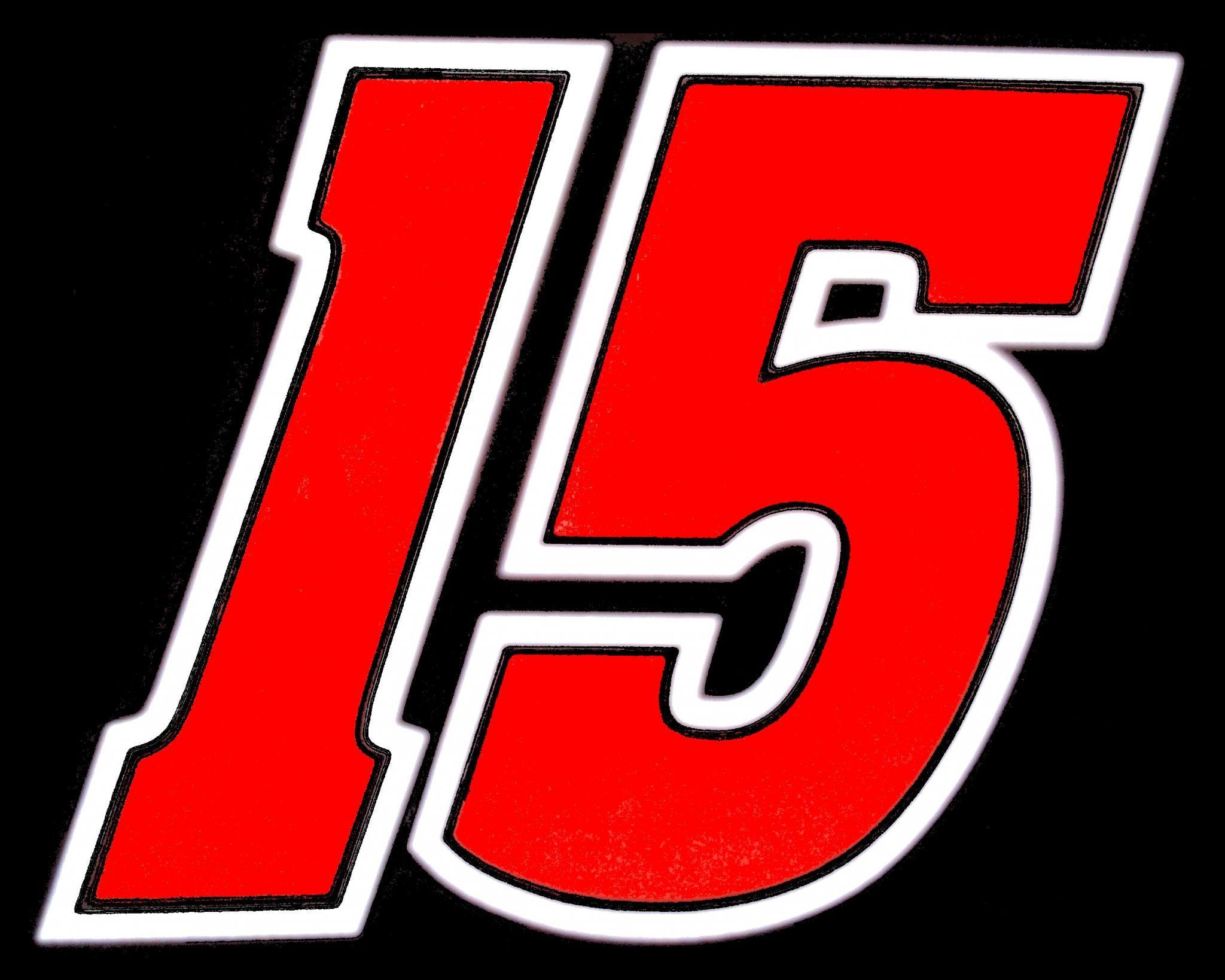
Incredible Nascar Fonts 2022. Web the nascar font can be downloaded in regular, italic, bold, and bold italic styles. The closest font we can find for nascar logo is itc machine medium, which is a display sans serif font designed by ronne bonder &.
Web What's The Font Used For Nascar Logo?
Web nascar logo font!!! The word nascar means national association for stock car auto racing which an american. You can also check out other tools like the text generator, font.
Web Nascar Font Is A Sans Serif Font That Has Based On The Nascar Logo.